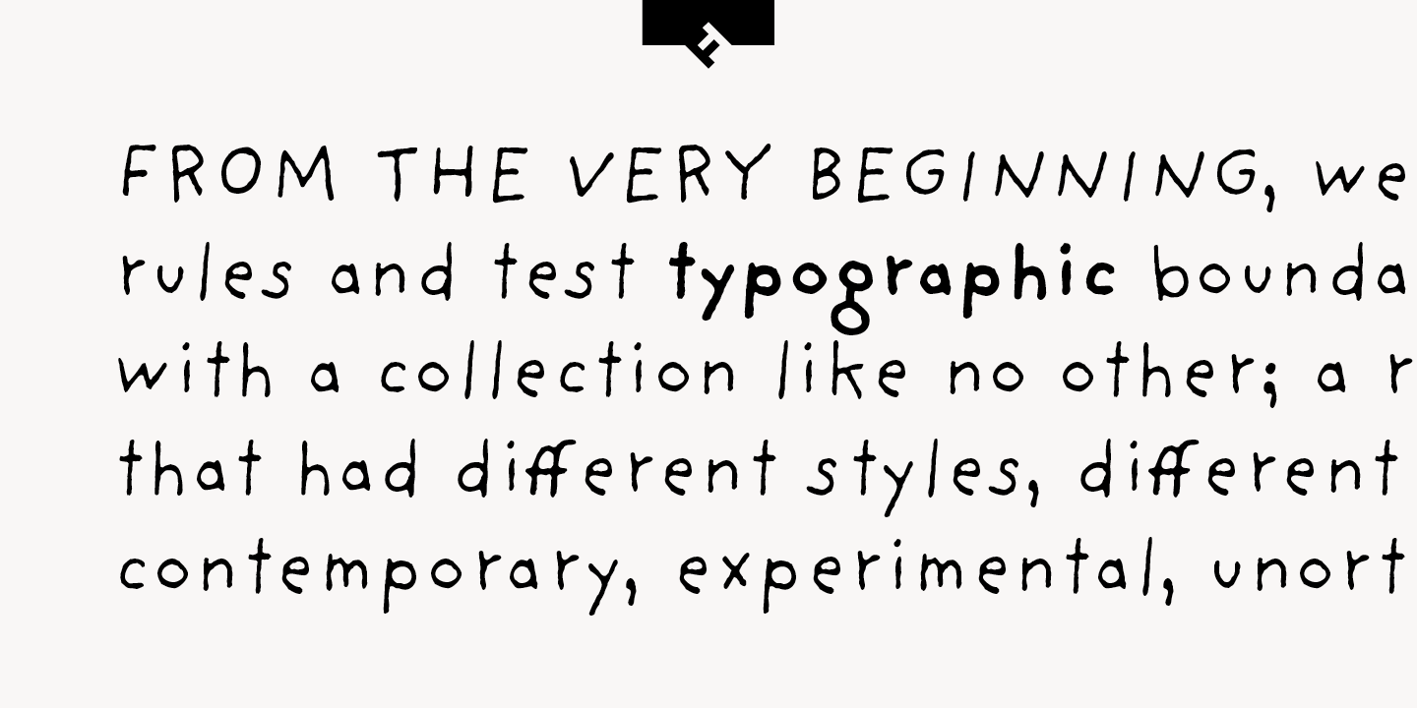
FF Providence Sans Font is perfect for trusted financial services, reliable insurance communications, dependable healthcare systems, established legal firm materials, steadfast government documents, providence-focused banking, trustworthy advisory services, long-term investment platforms, reliable institutional branding, and providentially secure marketing communications.
FF Providence Sans Font is exciting because it embodies the timeless reliability and protective wisdom of institutions that safeguard human welfare with its reassuringly solid letterforms that seem built to endure generations and reflect the careful stewardship that protects communities through changing times. Its providentially dependable character design reflects both the institutional wisdom that guides sound decision-making and the protective strength that makes certain organizations pillars of community stability, making it perfect for brands dedicated to long-term security and trustworthy service.
FF Providence Sans Font family includes thin, light, regular, medium, bold, and black weights, each with corresponding italic versions. The font family also features institutional ornaments, trust-building ligatures, stability symbols, and reliable decorative elements that enhance its dependable aesthetic and institutional versatility.
This reassuringly dependable typeface represents the perfect fusion of institutional wisdom and modern reliability. FF Providence Sans Font Free Download allows designers to experience its trustworthy potential before making a commercial commitment. The font's ability to convey both time-tested reliability and contemporary professionalism makes it ideal for financial institutions, healthcare systems, and established organizations targeting clients seeking long-term security and dependable service relationships.
Whether you're developing financial institution identities, creating healthcare system materials, or designing trust-focused communications, FF Providence Sans Font brings an unmistakable sense of institutional stability and protective reliability to every project. Its dependable character and providence heritage create powerful connections that establish immediate trust with audiences seeking long-term security and institutional wisdom.
The font's versatility excels in financial and institutional environments where trust and long-term reliability are absolutely essential. Its protective character makes it particularly effective for banks, insurance companies, healthcare systems, and established institutions seeking to maintain trustworthy relationships with clients who depend on institutional stability and protective stewardship.
For designers working on projects requiring genuine institutional trust and providential appeal, FF Providence Sans Font provides an exceptional solution. Its reassuringly stable presence and comprehensive trust-themed elements offer the tools needed for creating truly dependable communications, while its protective wisdom ensures your designs capture the institutional reliability and long-term security that defines the most trusted organizations and providential service experiences.